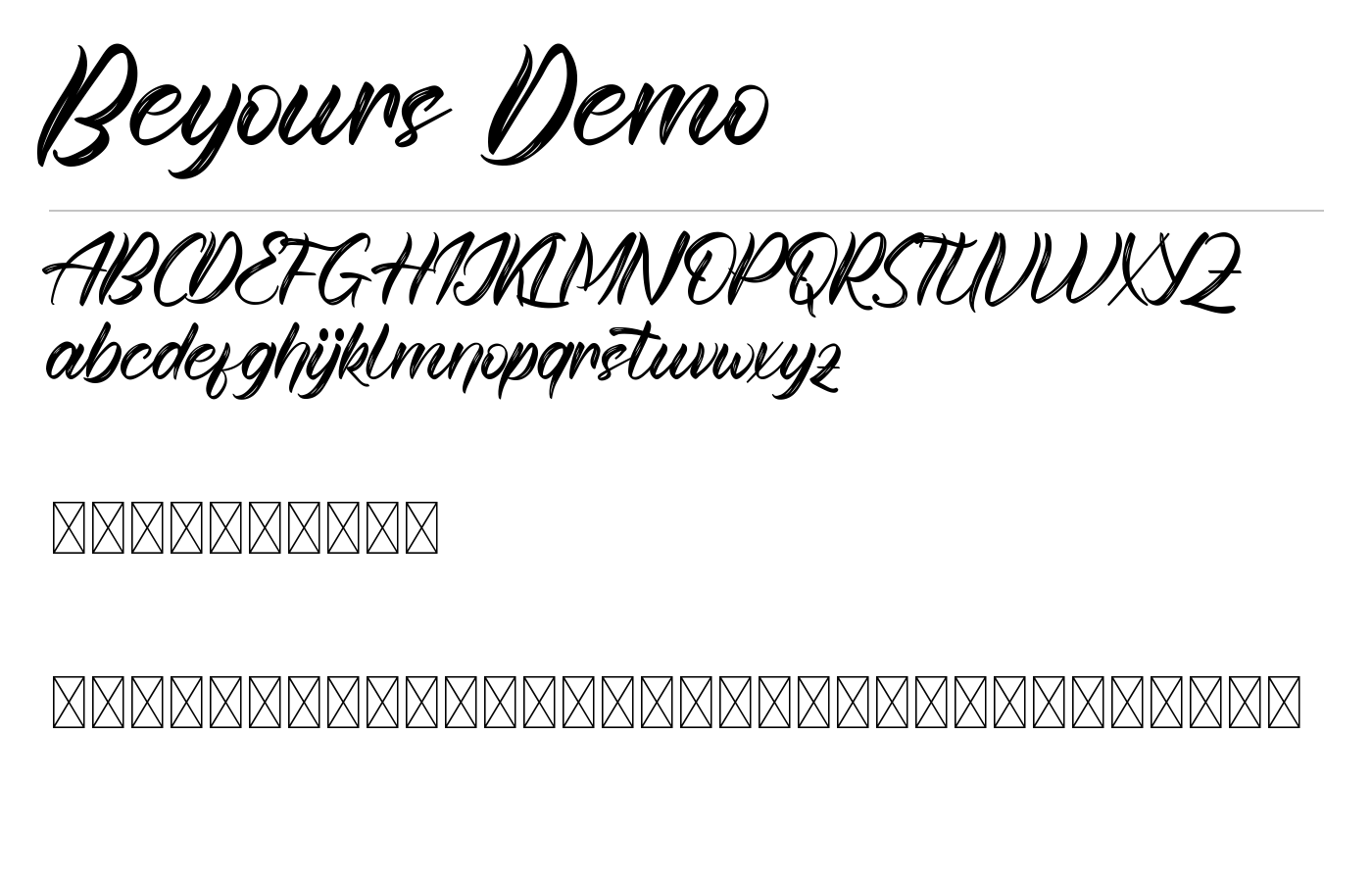
Beyours Demo is a lively and elegant script font that combines fluid brush strokes with a modern, handwritten feel. Its dynamic weight and stylish curves make it perfect for adding a personal, artistic touch to branding, invitations, and headlines. This font works especially well in creative and fashion-forward designs that seek to convey sophistication with a casual, approachable vibe.
Beyours Demo Font
About Beyours Demo Font
| Font family | Beyours Demo Font |
| Designer | Widiyanti & Sarah Suci Pauziah |